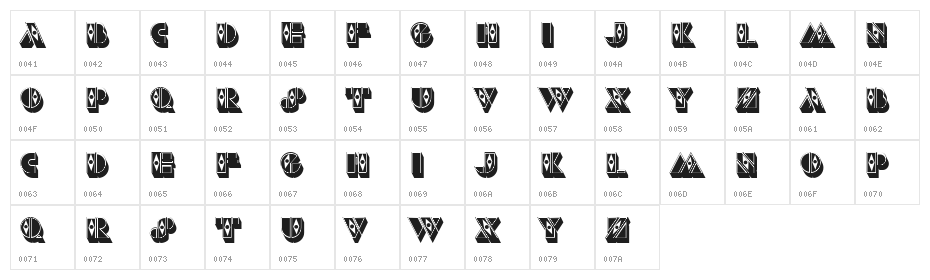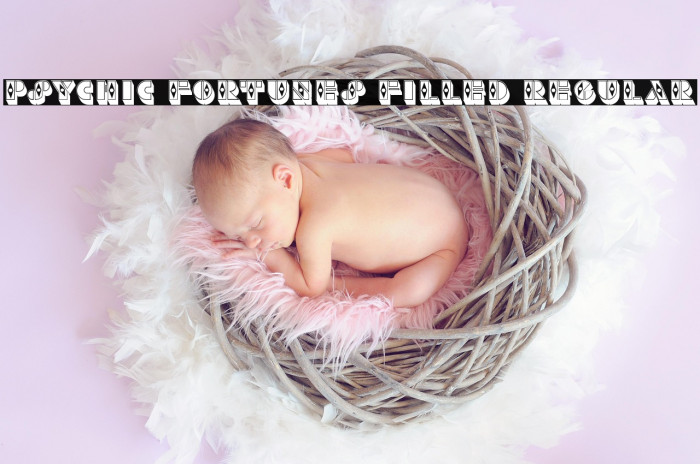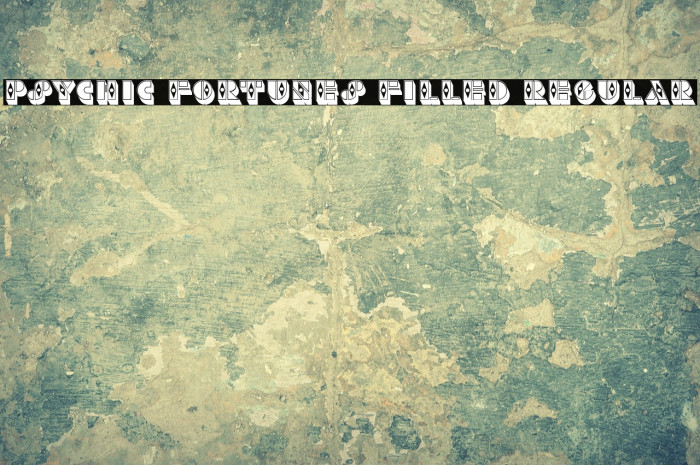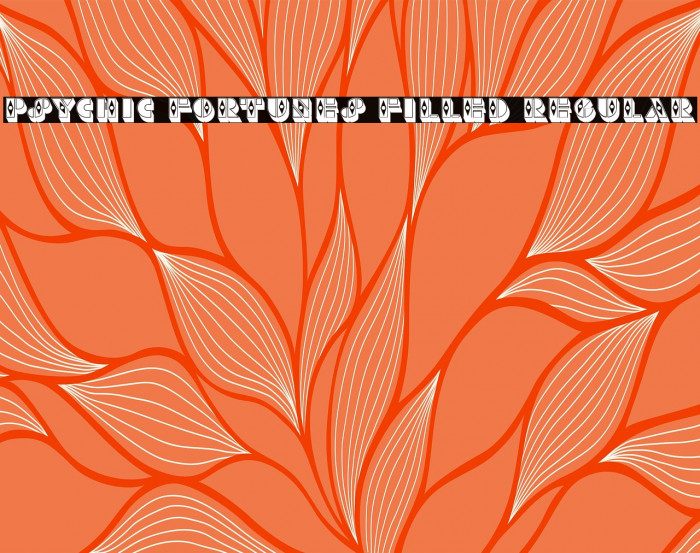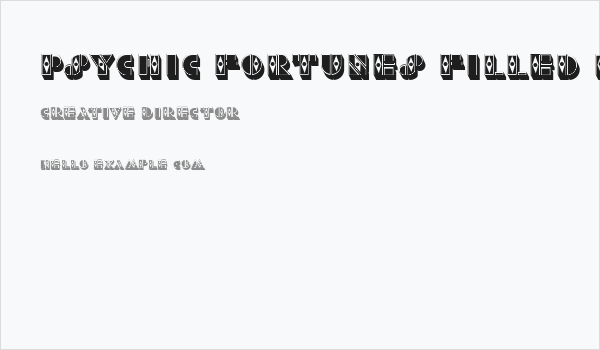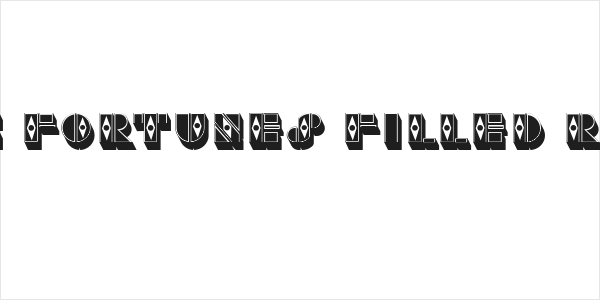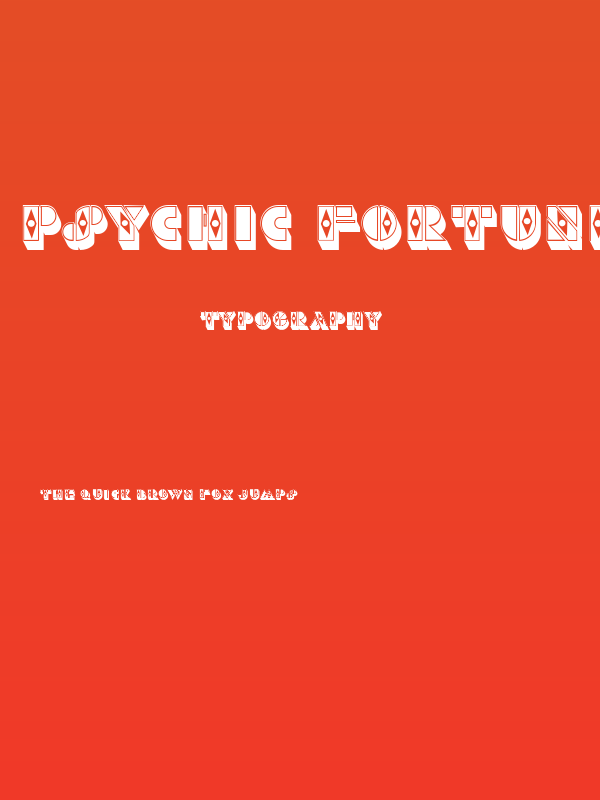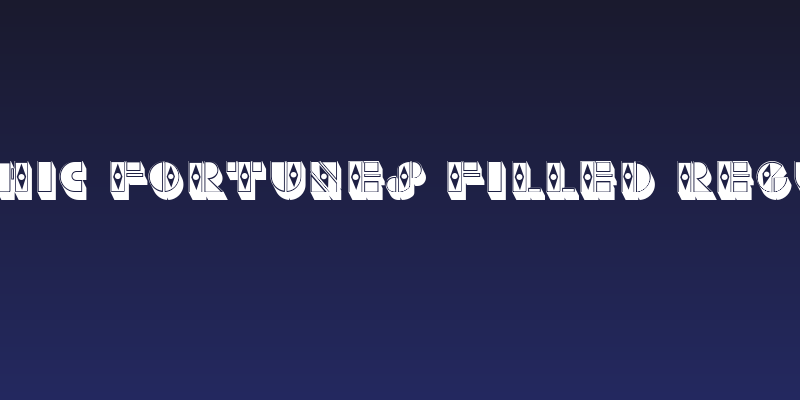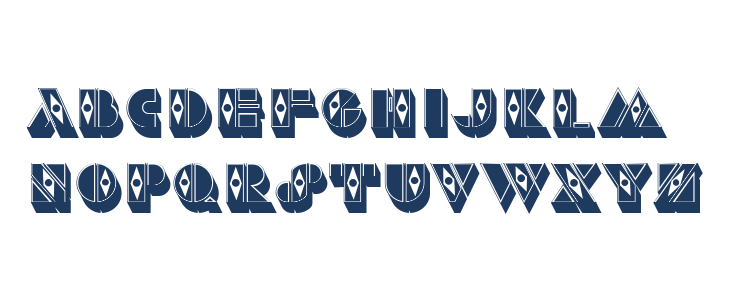
Psychic Fortunes Filled Regular Font
Psychic Fortunes Filled Regular Description
This font features a bold, decorative style with a unique filled pattern inside each character. The letters are blocky and geometric, with a three-dimensional effect created by the use of shadows. The interior of each letter is adorned with diamond-shaped patterns, adding an intricate and ornate touch. This design gives the font a mystical and eye-catching appearance, making it suitable for standout titles and creative projects. The uppercase letters are consistent in style, maintaining a uniform look across the alphabet.
| Proposed Projects | Ideal for use in posters, event invitations, branding for mystical or fantasy-themed products, and any project requiring a striking and unique typeface. |